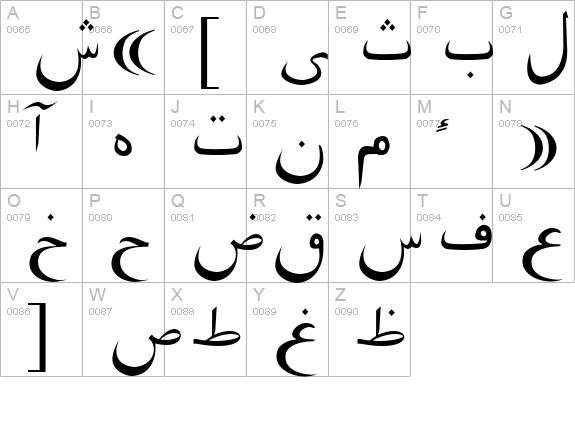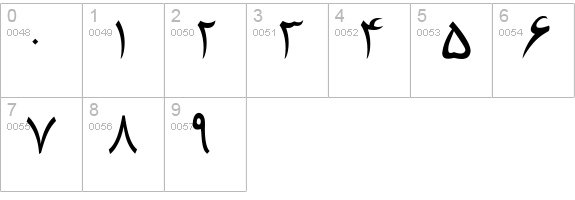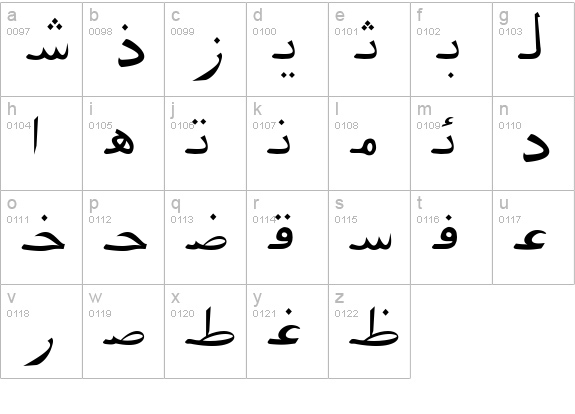
Pars Ziba Draft Font Details
Pars Ziba Draft is a stunningly elegant typeface that effortlessly combines sophistication and modernity. This font is perfect for those looking to add a touch of refinement to their designs, whether it be for branding, invitations, or editorial layouts. With its clean lines and graceful curves, Pars Ziba Draft exudes a sense of timeless beauty. It is a versatile font that can adapt to various styles and themes, making it suitable for a wide range of projects. But what sets Pars Ziba Draft apart is not only its visual appeal, but also its accessibility. This font is available for free download at FontsMarket.com, making it accessible to designers and typographers of all levels. Now everyone can enjoy the elegance and charm of Pars Ziba Draft without any barriers. Downloading Pars Ziba Draft is quick and hassle-free, allowing you to start incorporating this exquisite typeface into your projects immediately. Its extensive character set ensures that you have all the tools you need to create stunning designs. Whether you're working on a personal project or a professional endeavor, Pars Ziba Draft will elevate your work to new heights. So don't hesitate to download this exceptional font today from FontsMarket.com and unlock a world of endless creative possibilities.